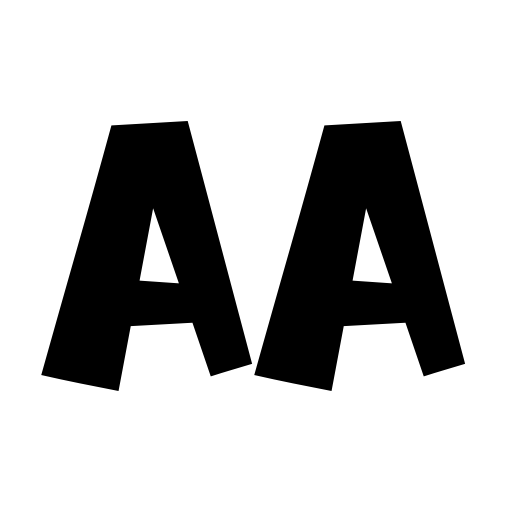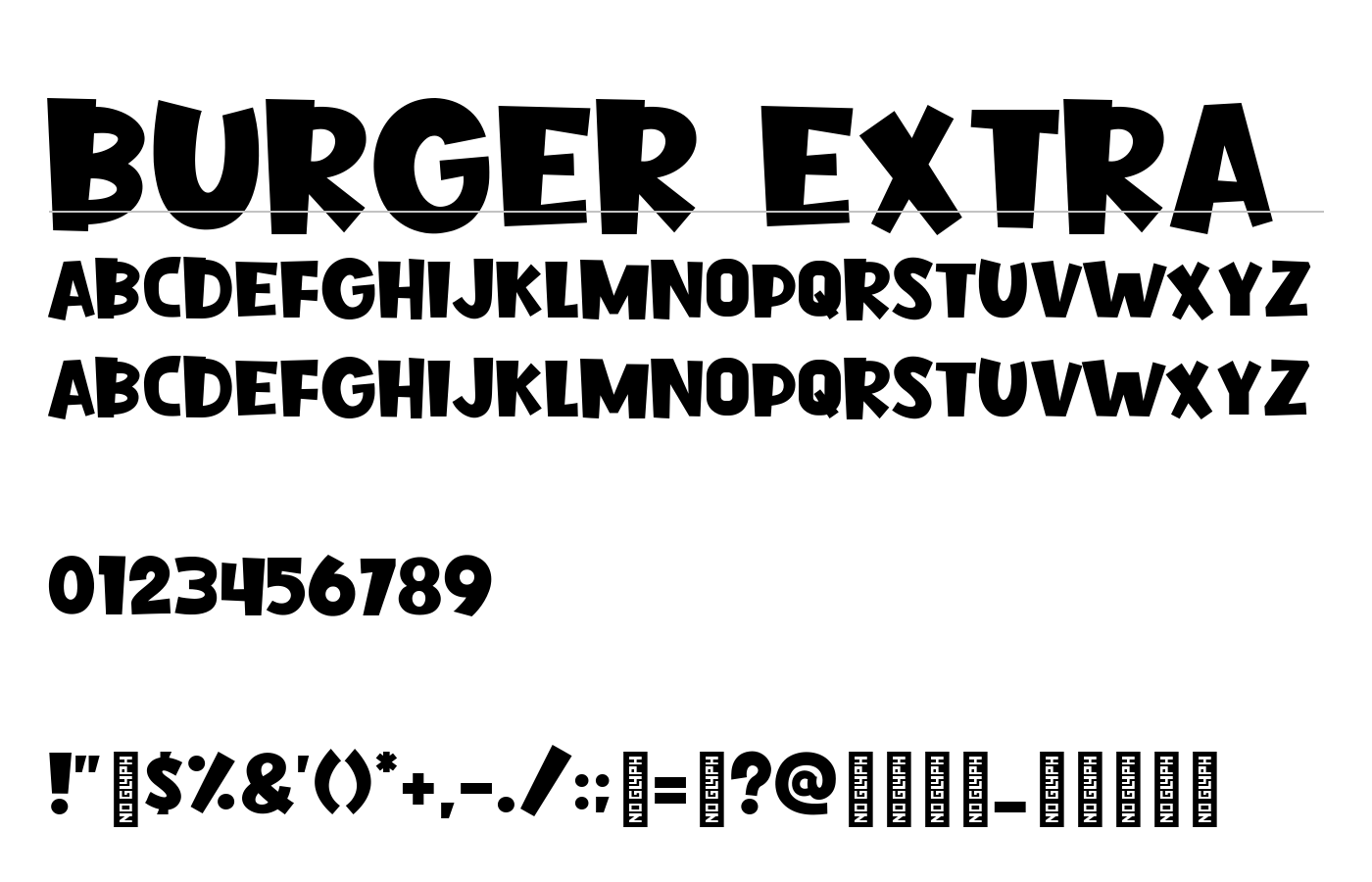
Burger Extra is a bold, playful sans serif font with a chunky, irregular shape that gives it a fun and casual vibe. Its wide letterforms and sturdy weight make it perfect for eye-catching headlines, logos, and designs aimed at a young or informal audience. This font works well in creative branding, posters, and packaging where a friendly, approachable style is desired.
Burger Extra Font
About Burger Extra Font